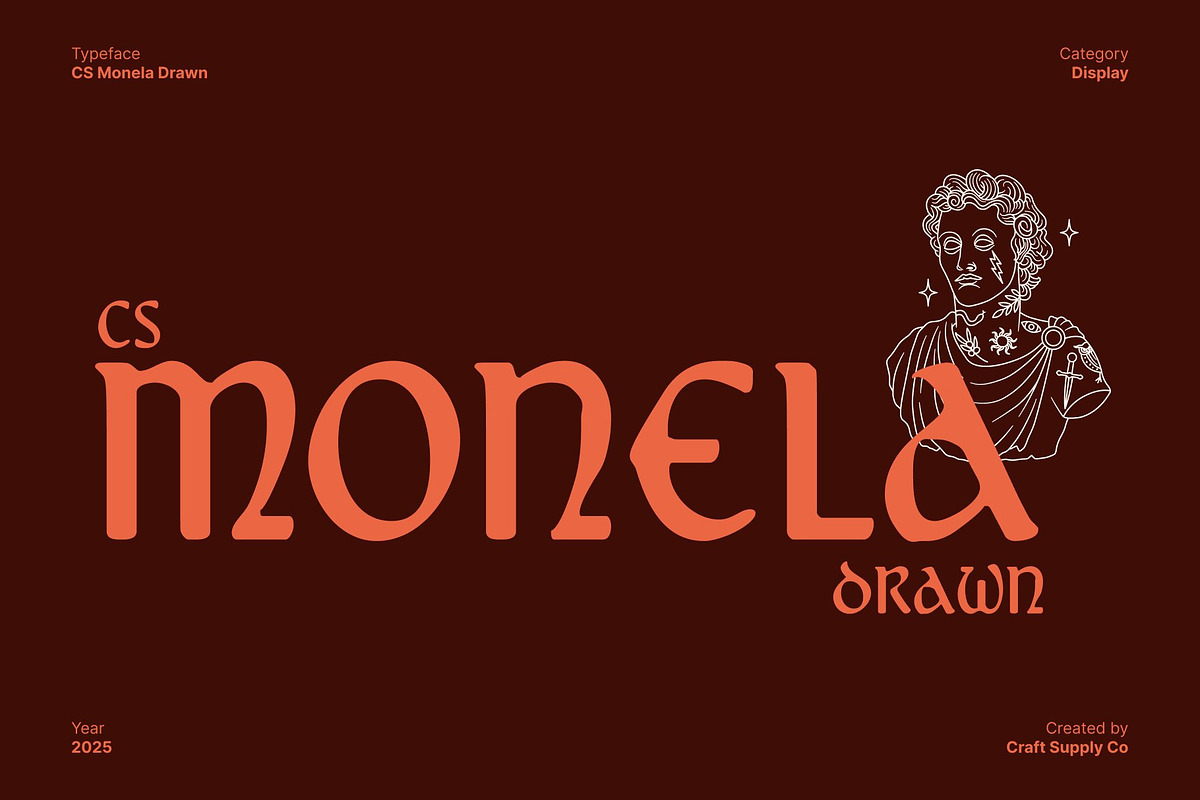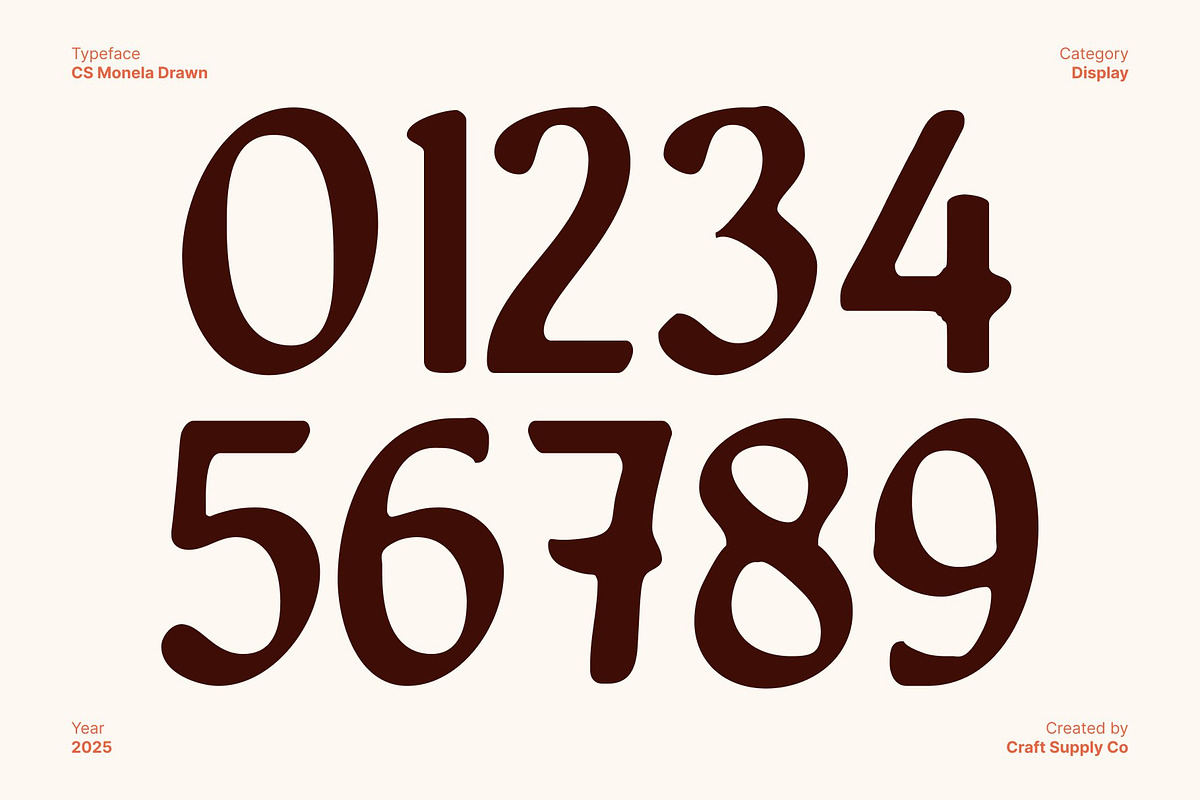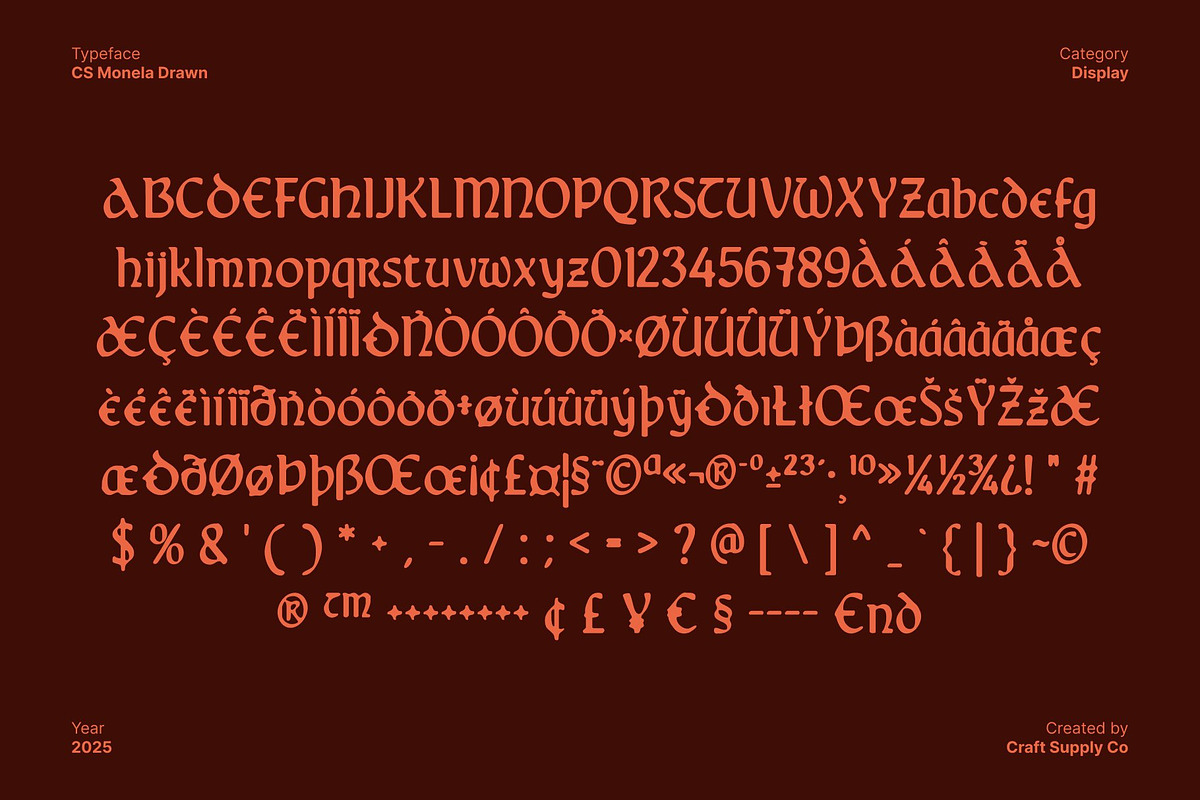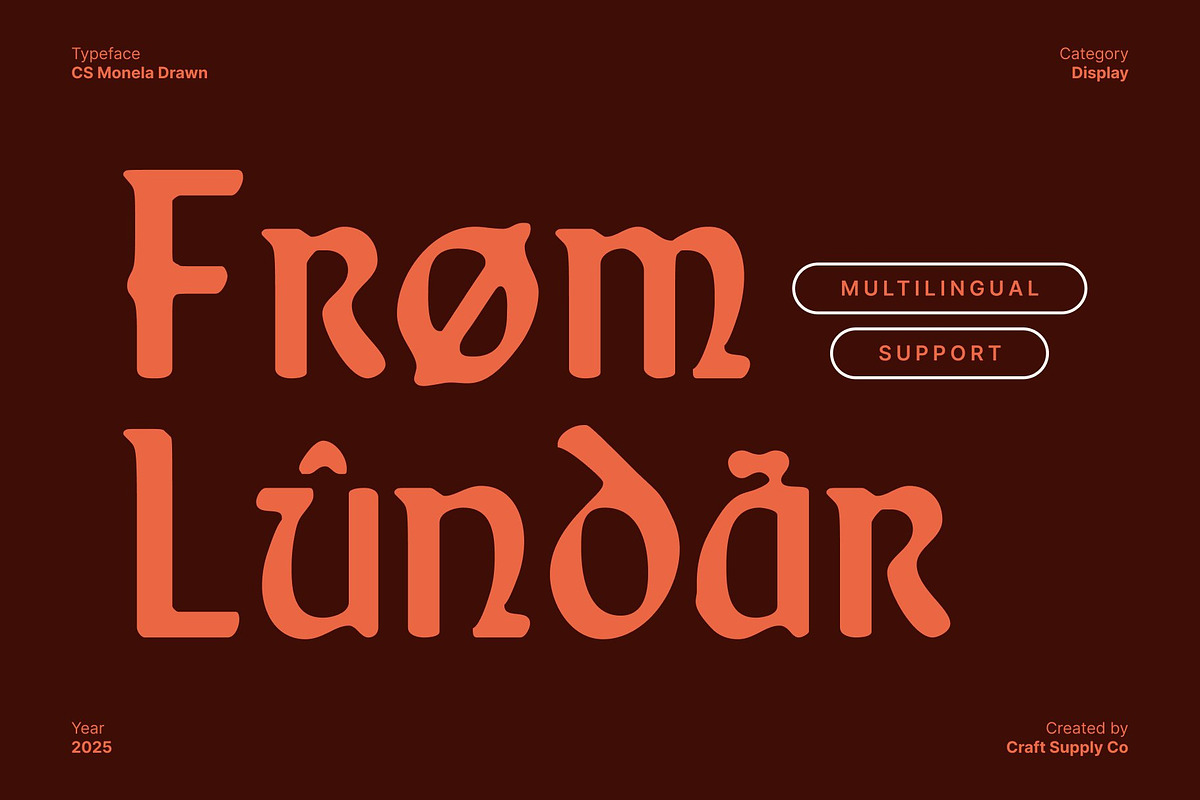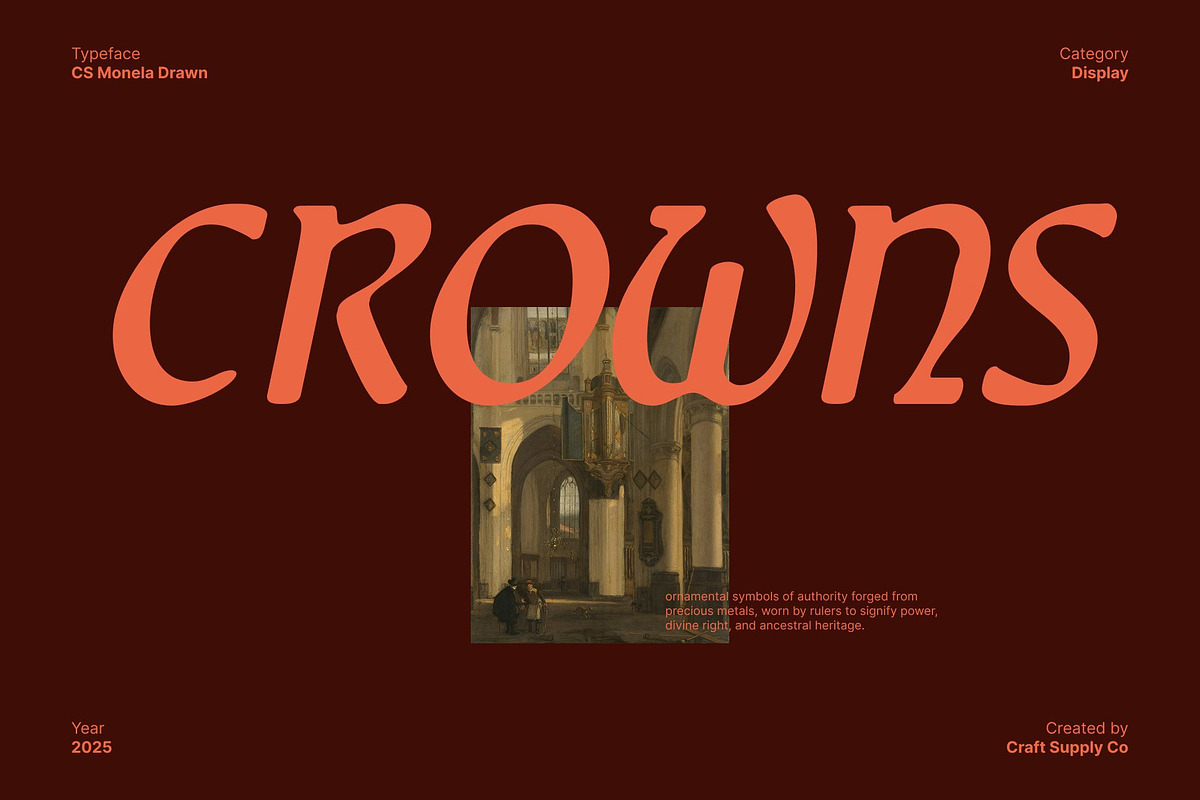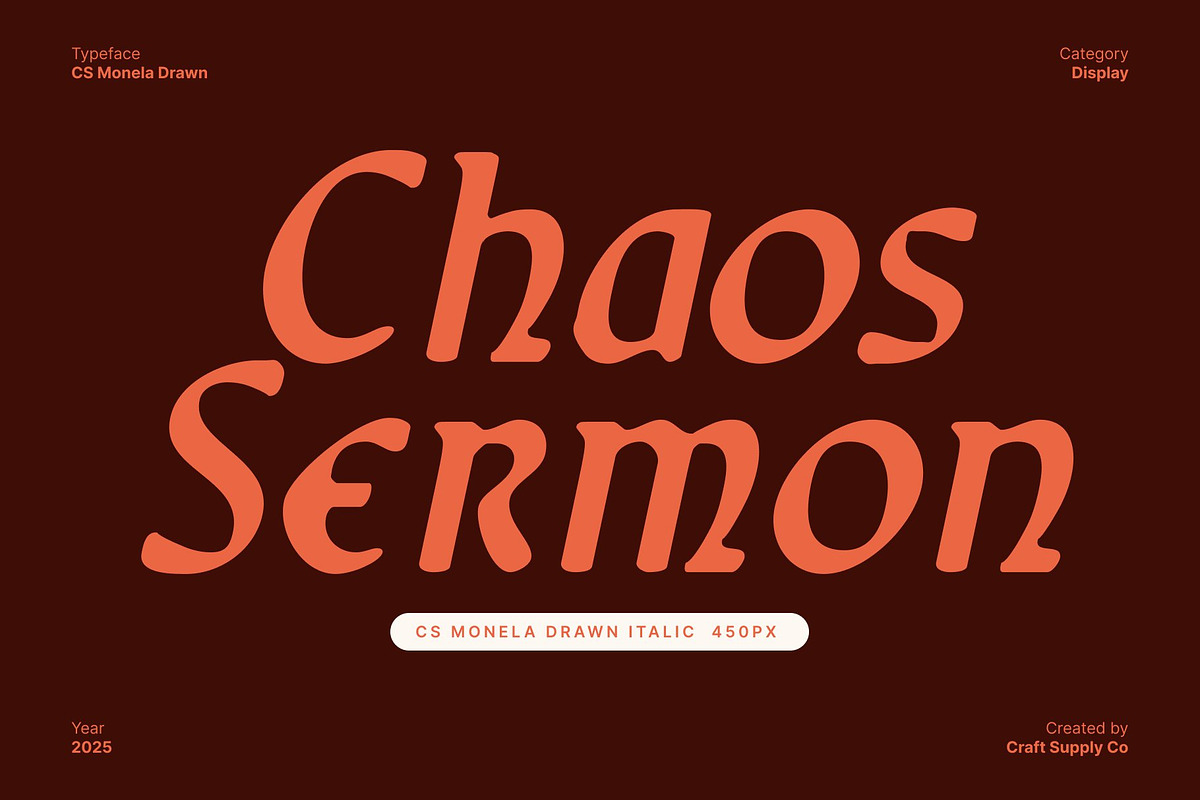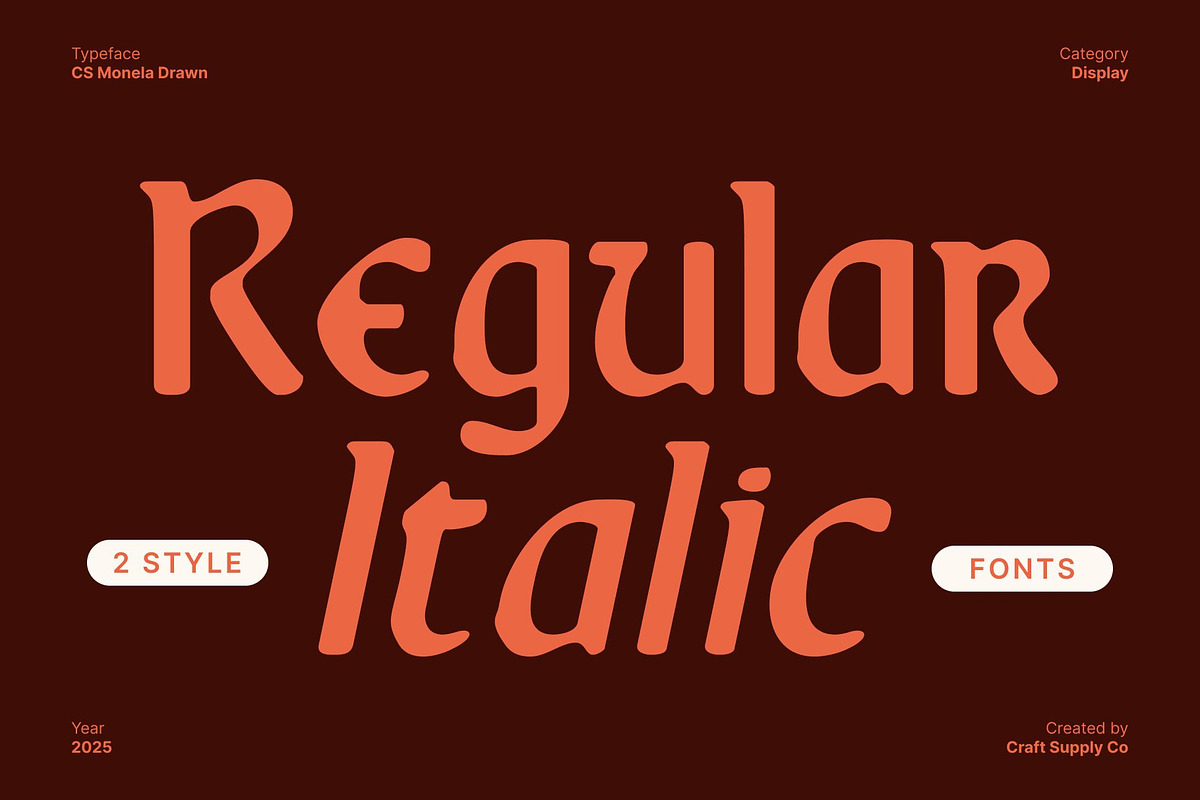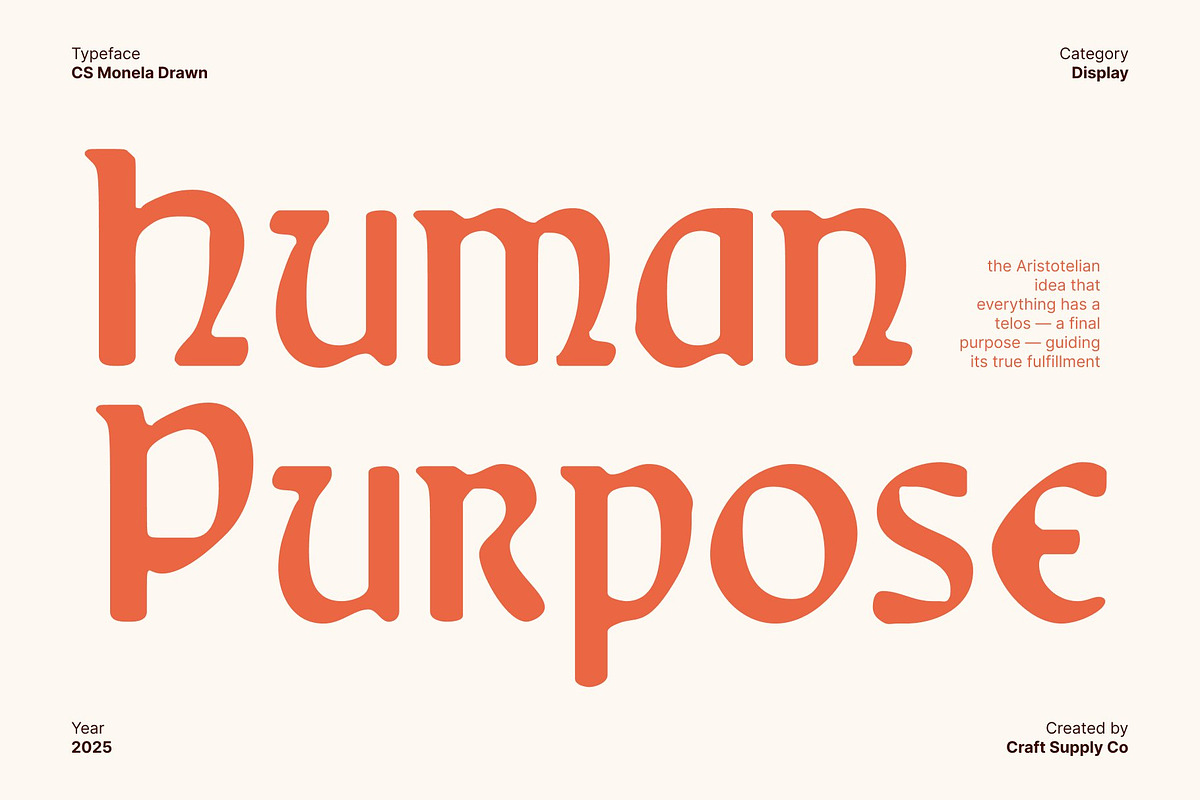
CS Monela Drawn
CS Monela Drawn – Historic Uncial Font with Modern Hand-Drawn
Timeless Uncial Forms with a Contemporary Twist This font merges the elegance of historic uncial display letterforms with a modern design approach. Its balanced, rounded shapes evoke classical scripts while maintaining a fresh and contemporary feel. The result is a typeface that honors tradition but feels relevant and stylish for today’s design projects.
Hand-Drawn Texture for Warmth and Personality The hand-drawn texture adds subtle irregularities and organic detail, giving each character a warm, artisanal quality. This handcrafted vibe transforms the classical forms into a font that is expressive, inviting, and visually engaging. The drawn effect enhances the uniqueness of the typeface, making it feel personal and refined.
Perfect for Luxury Branding, Titles, and Sophisticated Layouts This font excels in applications that require and distinction. Ideal for luxury branding, editorial titles, book covers, packaging, and high-end layouts, the font communicates refinement while maintaining a natural, approachable character. Its combination of historic depth and modern style ensures your projects leave a memorable impression.
A Versatile Typeface Balancing Tradition and Modernity By blending classical uncial aesthetics with modern hand-drawn artistry, offers versatility and sophistication. It’s perfect for designers seeking a font that conveys timeless elegance, creative warmth, and high-end personality. This typeface elevates any design with its unique, expressive, and stylish presence.